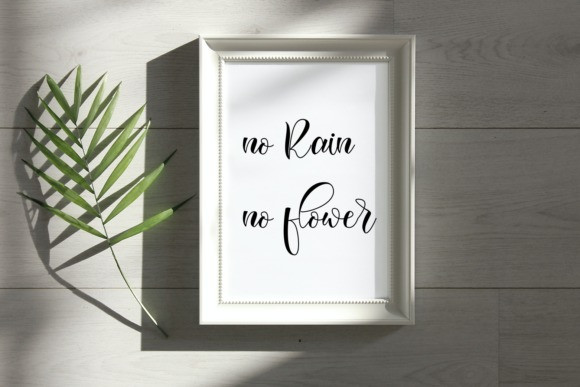
Vanesha Script Font is a lovely and timeless handwritten font. It is the best choice for creating eye catching logos, branding and quotes. Every letter has a unique and beautiful touch, which will make your design come alive!
Designer Name: | Infontree |
Classification: | Calligraphy Fonts, Script Fonts |
Vanesha